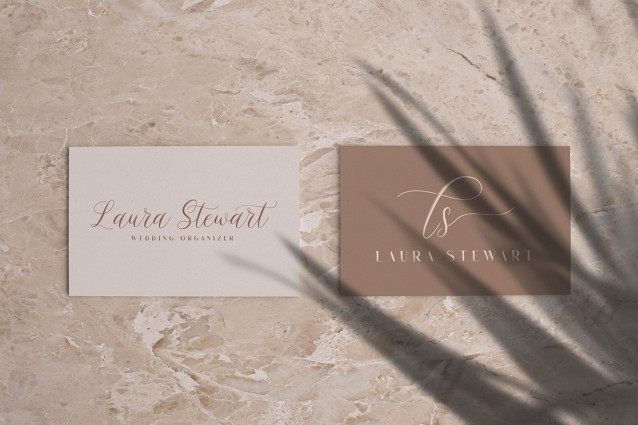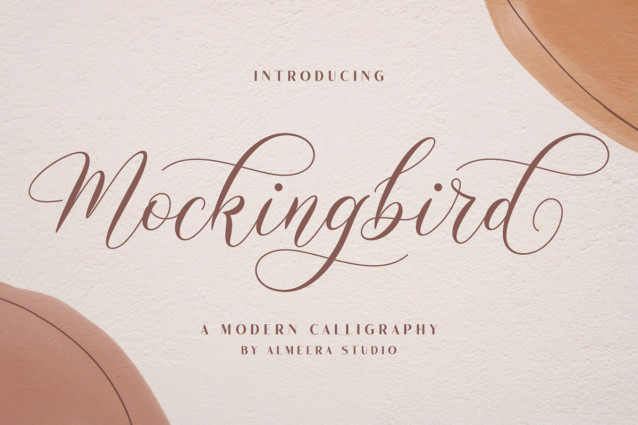
Mockingbird Font
Mockingbird Font – Modern Calligraphy Font. For those of you who are needing a touch of elegance and modernity for your designs, this font was created for you!
Mockingbird was built with OpenType features and includes beginning and ending swashes, alternate swash characters for most lowercase letters, numbers, punctuation, alternates, ligatures and it also supports other languages 🙂
Mockingbird is suitable for various products such as invitations, product packaging, quotes, product design, crafter, labels, photography, watermarks, logos & branding. Everything can be accessed using software that supports Opentype, such as Adobe Indesign, Adobe CS Illustrator, Adobe Photoshop CC, and Corel Draw.